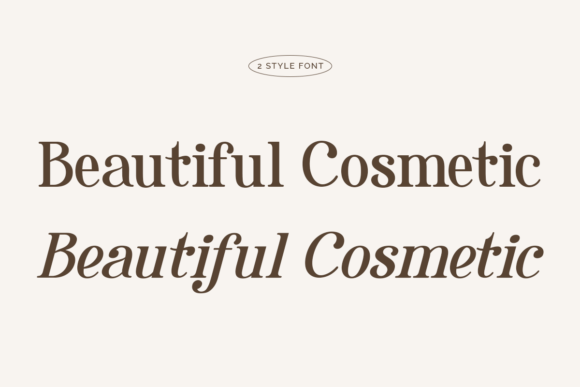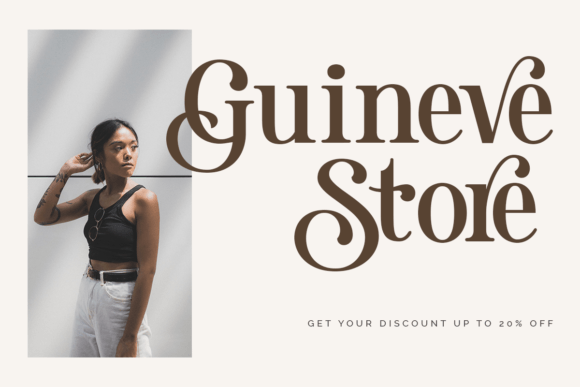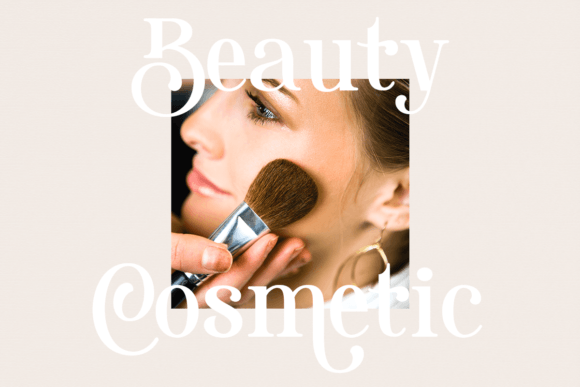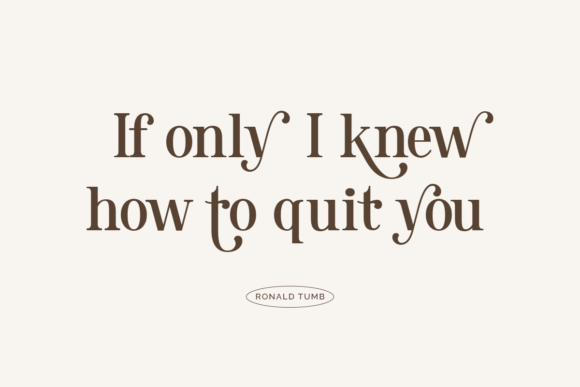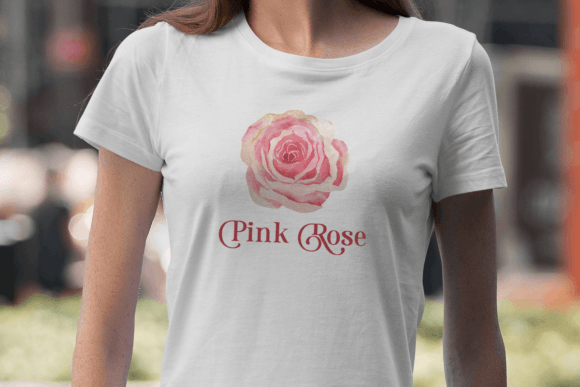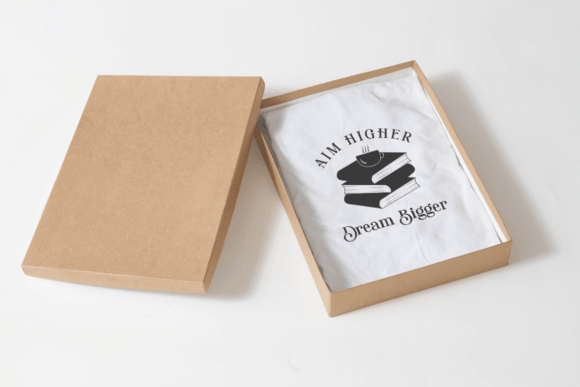
Introduction to Ronald Tumb Font
As you sit in front of your computer, staring at a blank canvas, the creative juices start flowing, and a new idea begins to take shape. You imagine a beautiful, elegant design that captures the essence of your vision. But, what if you could elevate that design to the next level with the perfect font? Enter the Ronald Tumb Font, a classy and vintage serif font that’s sure to bring your creative project to life.
Whether you’re a seasoned designer or just starting out, the Ronald Tumb Font is a valuable resource that’s worth exploring. With its high-quality design and transparent background, this font is perfect for adding a touch of sophistication to your designs. Plus, with its PUA encoded feature, you can easily access all the cute glyphs and swashes to add a personal touch. And the best part? It’s available for free download, making it an excellent addition to your design arsenal.
Key Features of Ronald Tumb Font
- High-quality font design with a transparent background, ideal for creative projects and designs.
- Unique characteristics: features a playful and whimsical design style, perfect for adding a touch of personality to creative projects.
Honest Review: Ronald Tumb Font
I recently stumbled upon the Ronald Tumb Font while searching for a high-quality font for a creative project. The font offers a free download, making it an attractive design resource for designers on a budget.
The font itself has a unique, playful feel to it, making it perfect for projects that require a fun and casual tone. I particularly appreciate the transparent background option, which allows for seamless integration into various design elements.
- High-quality design with a unique feel ✨
- Transparent background option for easy integration
- Limited character set, which may not be ideal for extensive text-based projects ⚠️
- Not suitable for formal or professional designs due to its playful nature
Overall, I’m impressed with the Ronald Tumb Font and would recommend it for creative projects that require a fun and lighthearted tone. While it may have some limitations, it’s a great addition to any designer’s toolkit.
Tips and Best Practices
For the best results, use Ronald Tumb Font with a transparent background to ensure a seamless design. Experiment with different font sizes and styles to add visual interest to your creative project.
Ronald Tumb Font is ideal for various design projects, including logos, branding materials, and marketing materials. Its unique style and high-quality design make it a popular choice among designers.
Q: Does the Ronald Tumb Font have a transparent background?
Yes, the Ronald Tumb Font has a transparent background, making it easy to use in designs with complex backgrounds or transparent elements. The font’s transparent background allows you to create visually appealing designs without worrying about the font’s background interfering with your design.